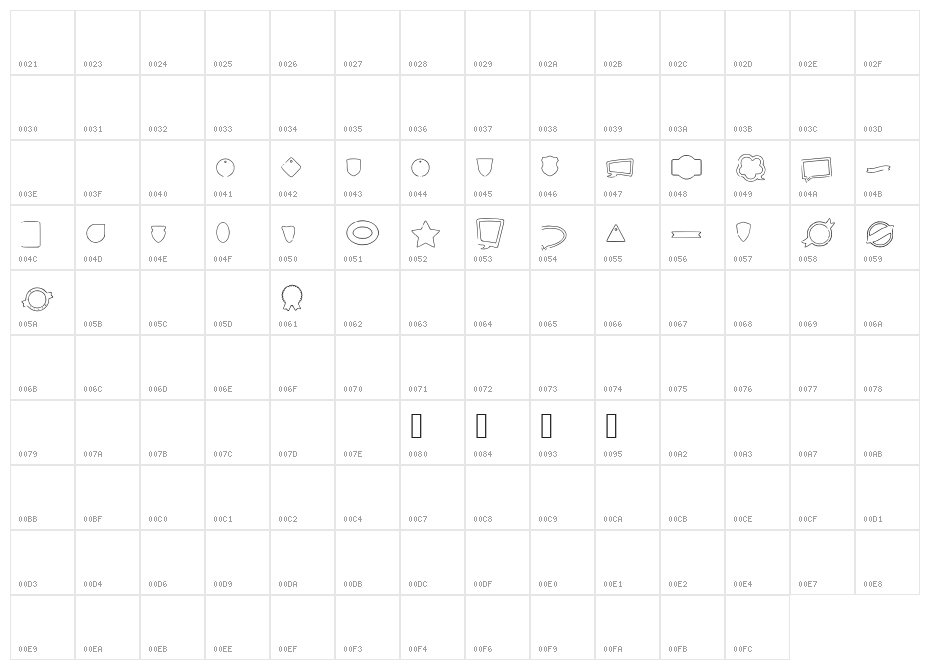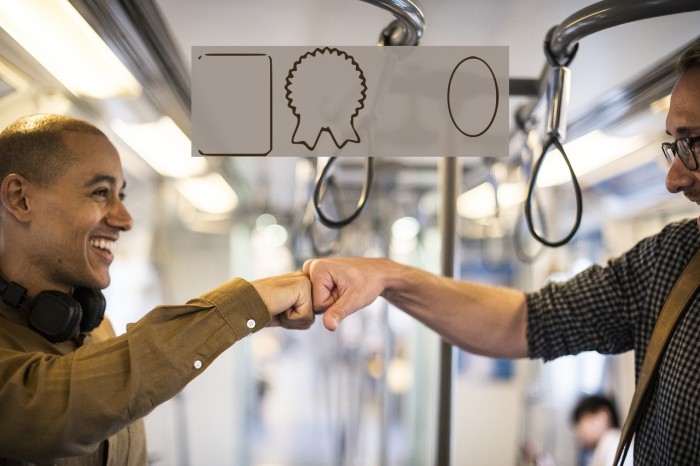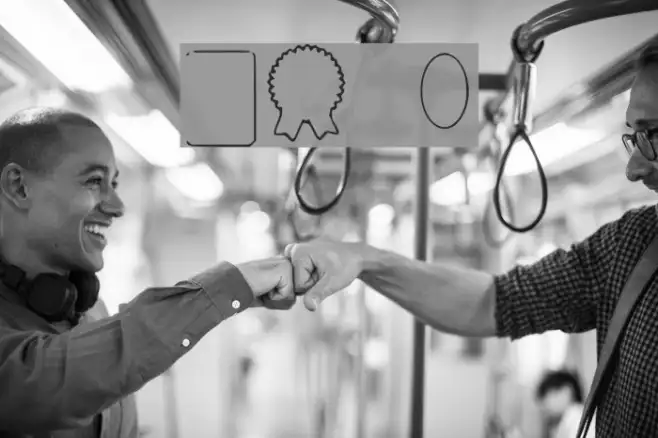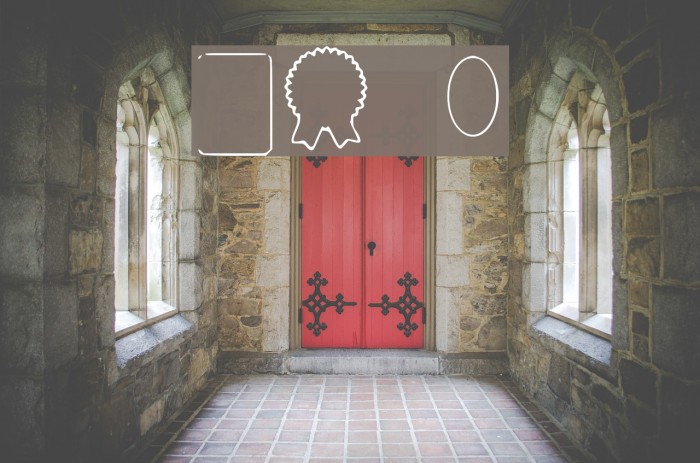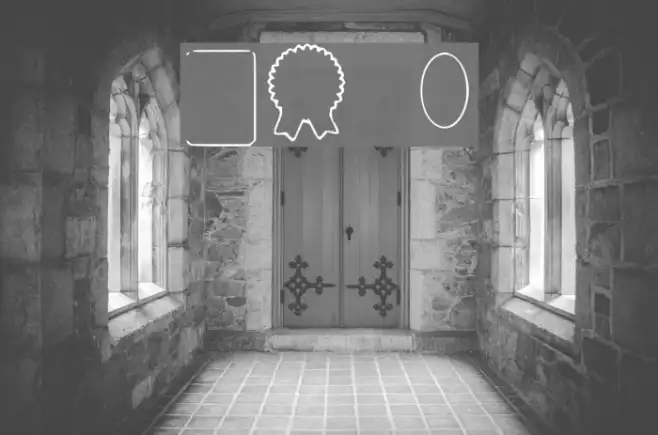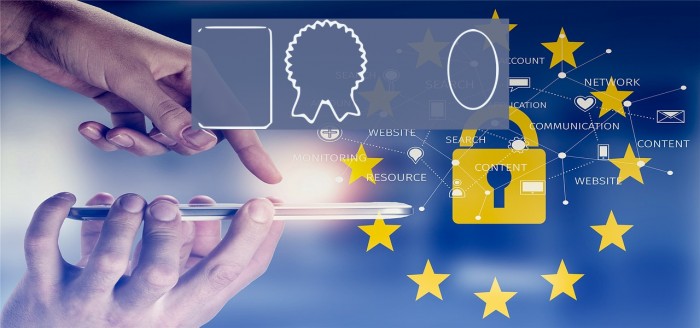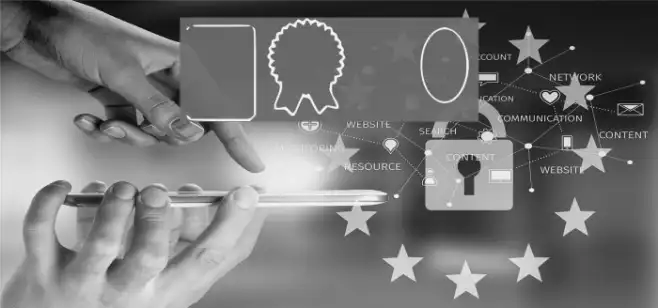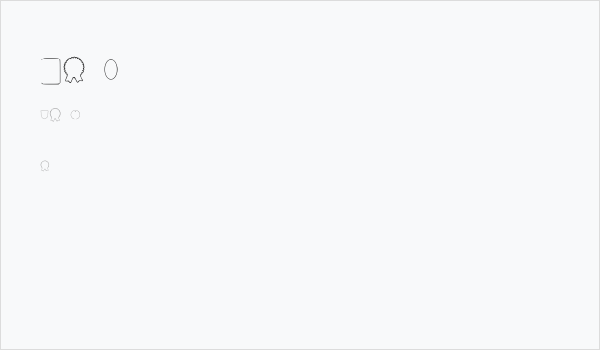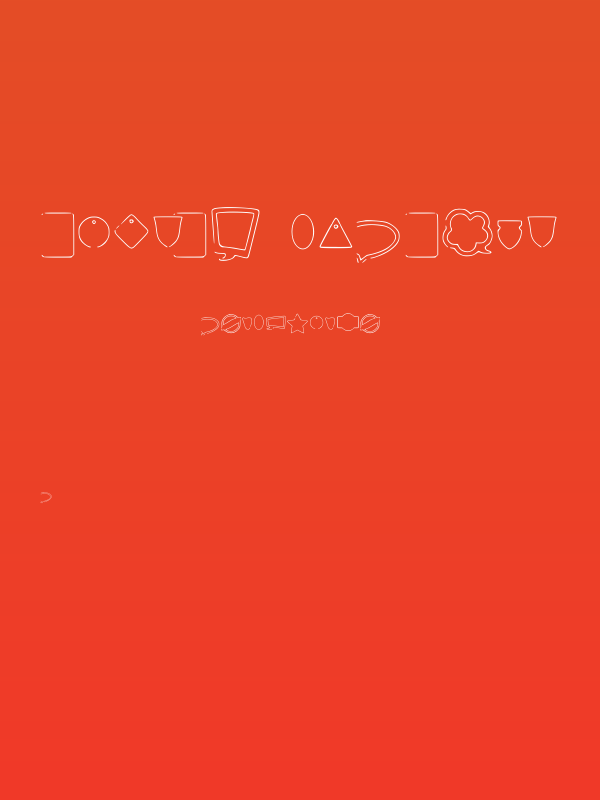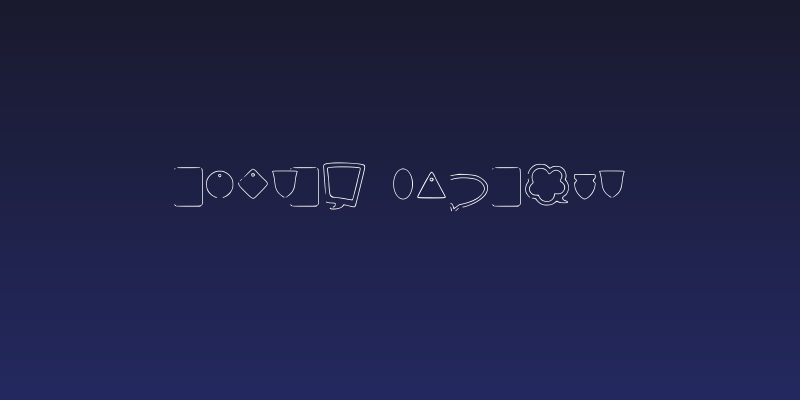
Labels Outline Font
Labels Outline Description
A collection of outlined label and badge shapes, including circles, shields, stars, speech bubbles, arrows, and ribbons, all rendered with clean, uniform stroke lines and no filled areas.
| Use Case | Labels, tags, badges, icons, digital scrapbooking. |
| Proposed Projects | Sticker design, scrapbooking, packaging labels, digital planners, infographics, educational materials. |